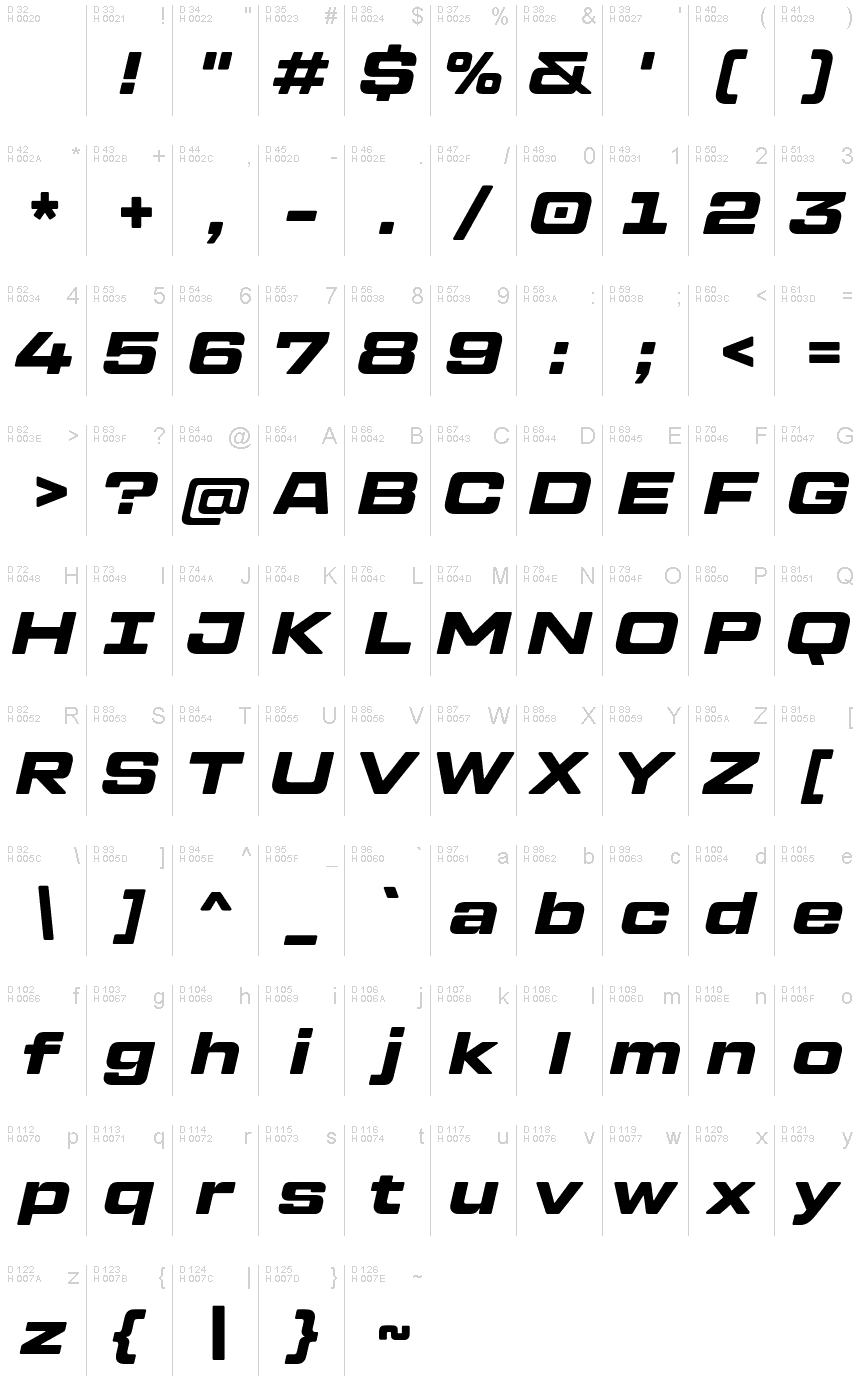
TT Lakes Neue Trl Exp Blc It
TT Lakes Neue Exp Blc It is a cutting-edge sans serif font designed by the renowned TypeType Foundry. With its extra-bold weight and extra-expanded width, this font exudes confidence and authority. Its clean lines and minimalistic design make it perfect for a wide range of projects, from modern websites to professional presentations. Whether you're looking to create eye-catching headlines or sleek body text, TT Lakes Neue Exp Blc It has got you covered. Use it for your next branding project, editorial design, or even packaging design to make a bold statement that leaves a lasting impression.